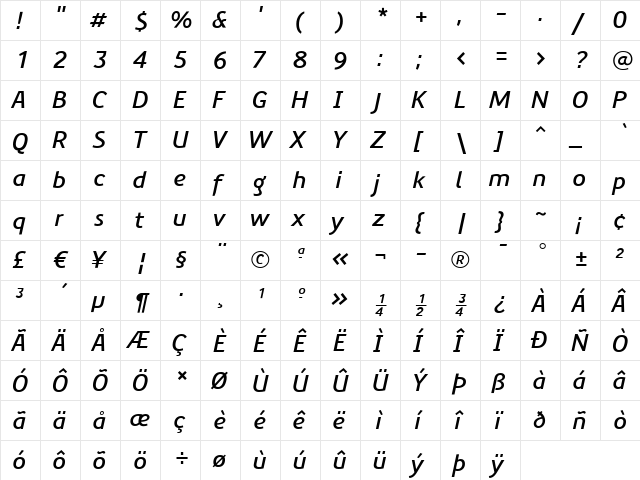
PreciousSans Bold Italic
Design Context for PreciousSans Typeface
PreciousSans is a composed and adaptable typeface that performs quietly and consistently across a wide range of design contexts. Its italic angle brings a sense of urgency and motion to the letterforms. Its bold stroke weight gives it real presence on the page.
Pro Tip: Try PreciousSans for annotation and caption copy alongside an upright companion — the contrast in angle creates a dynamic but ordered typographic system.